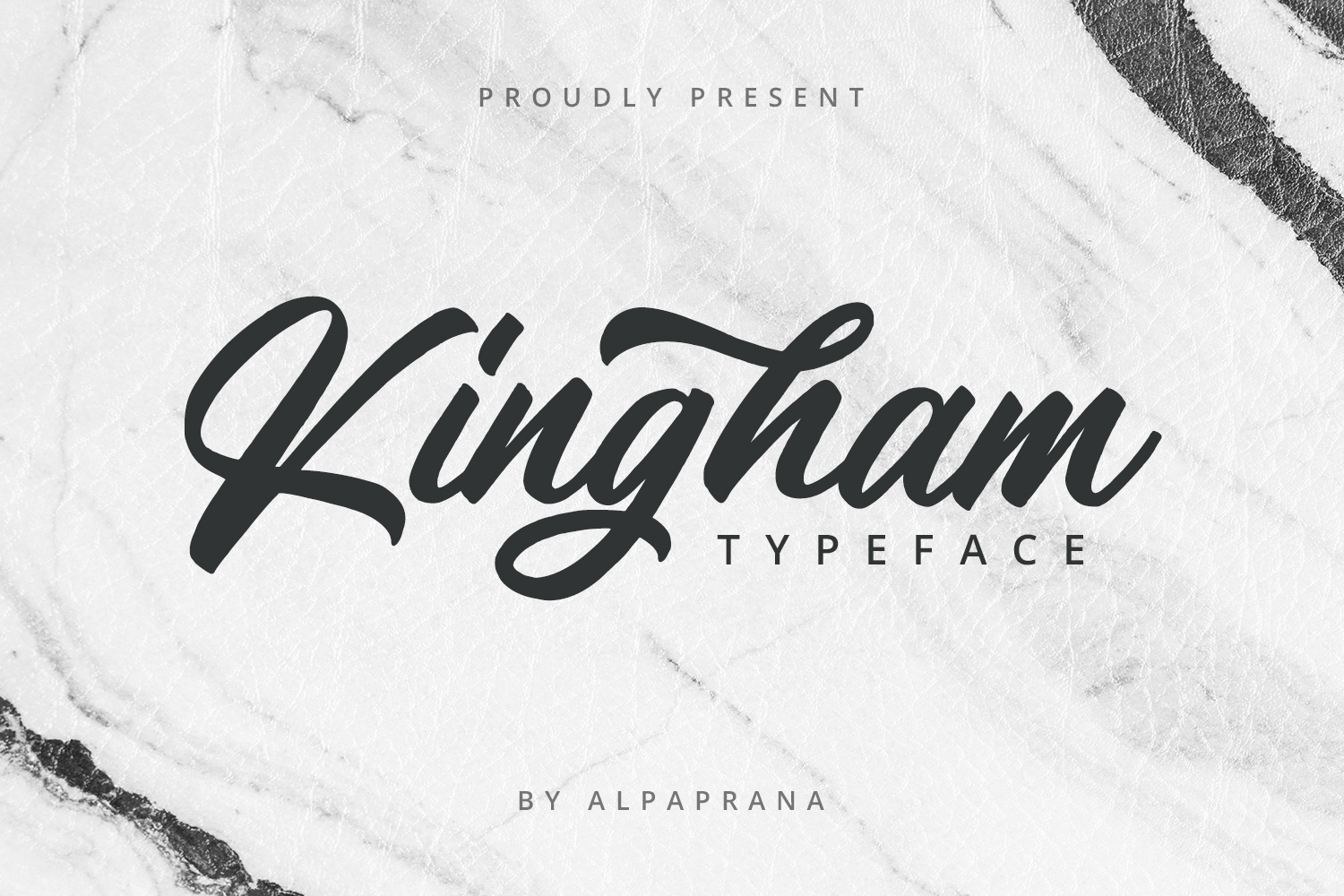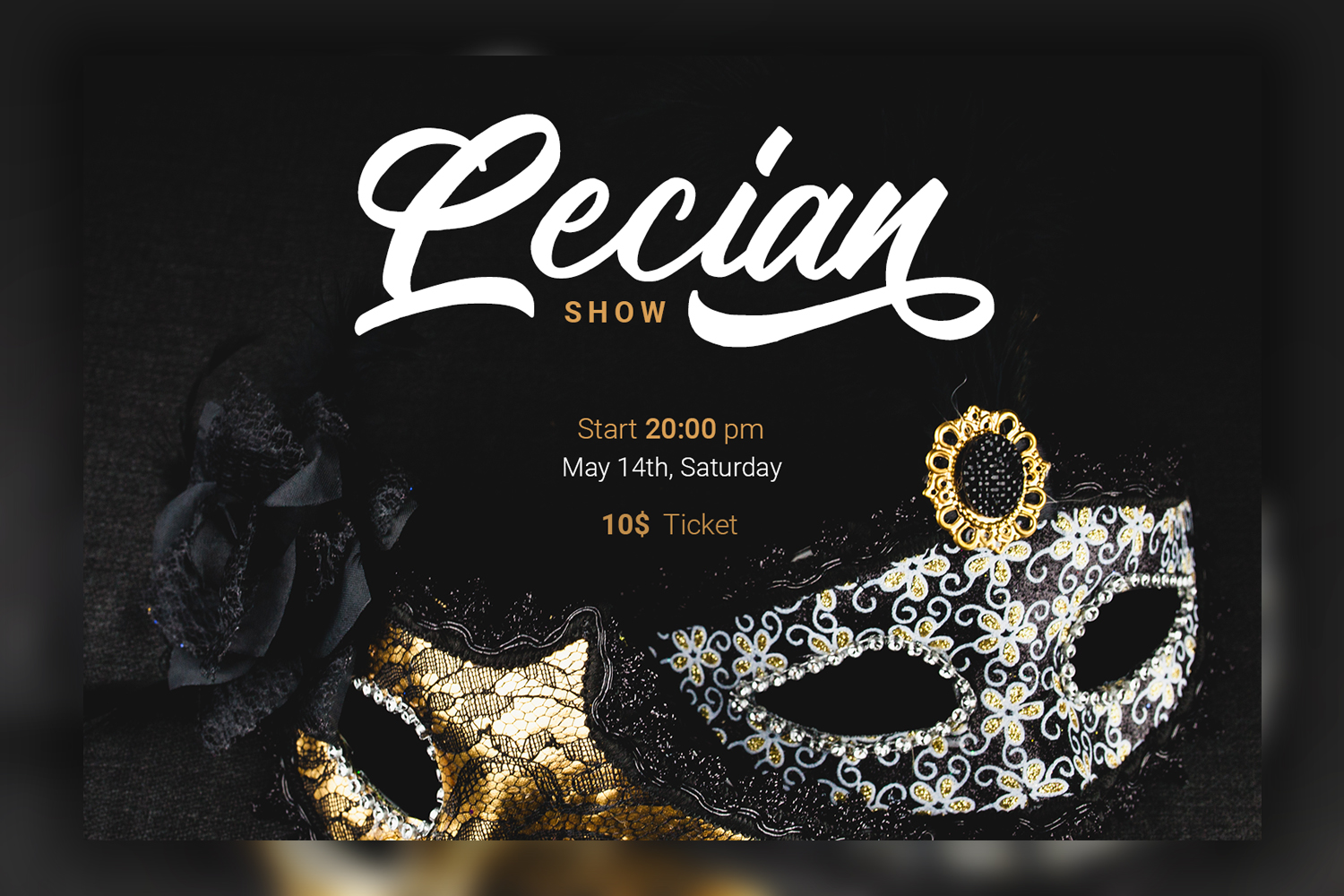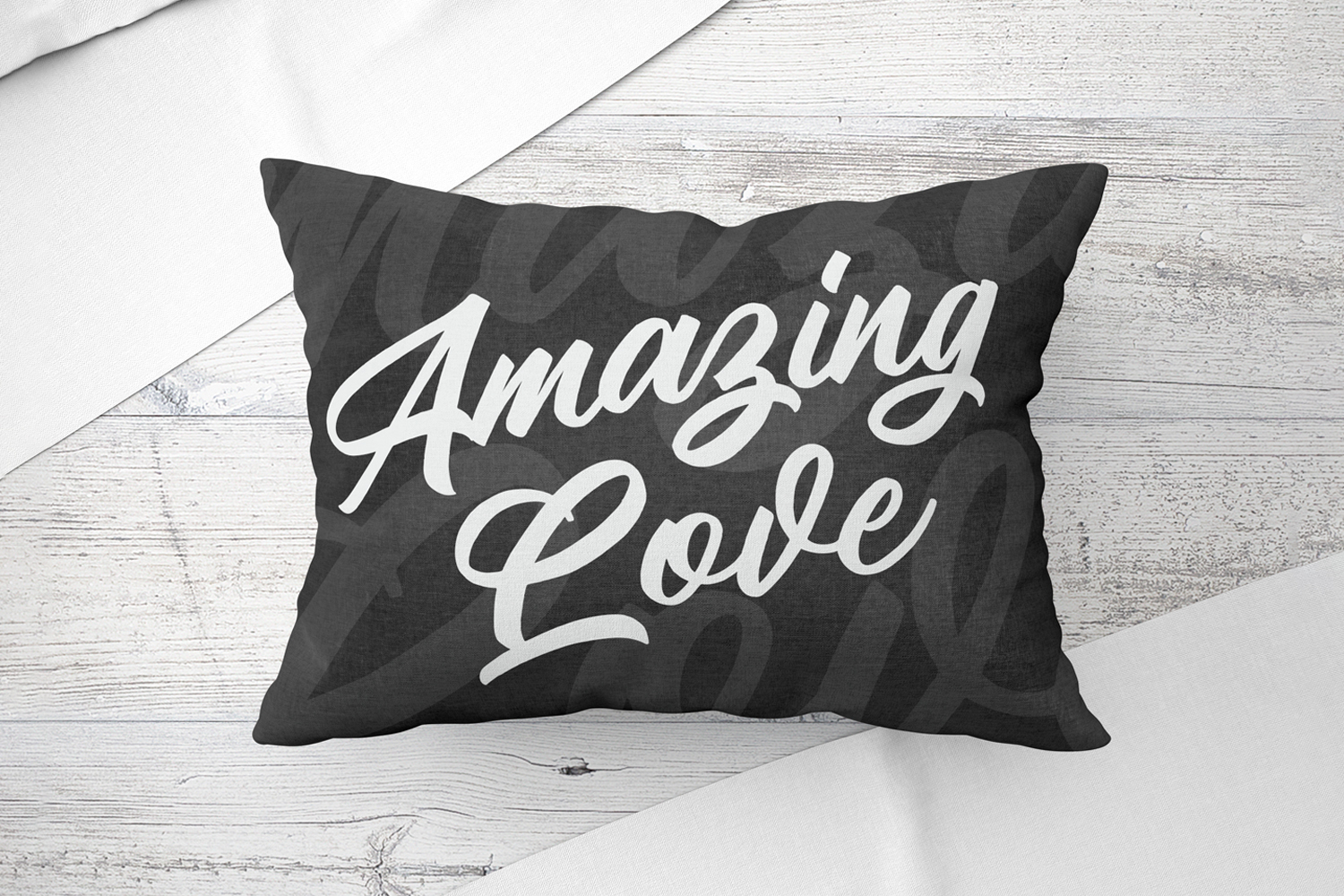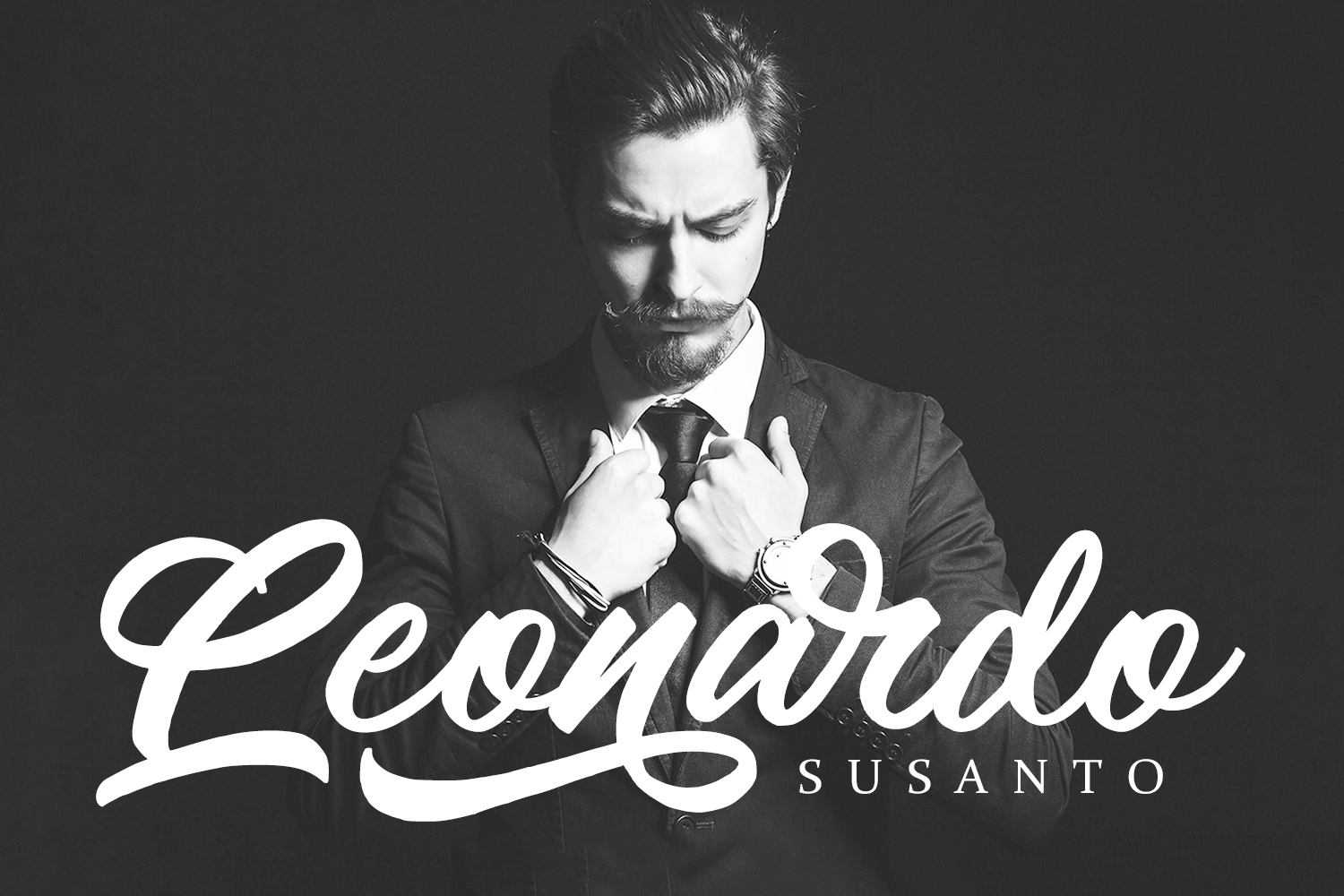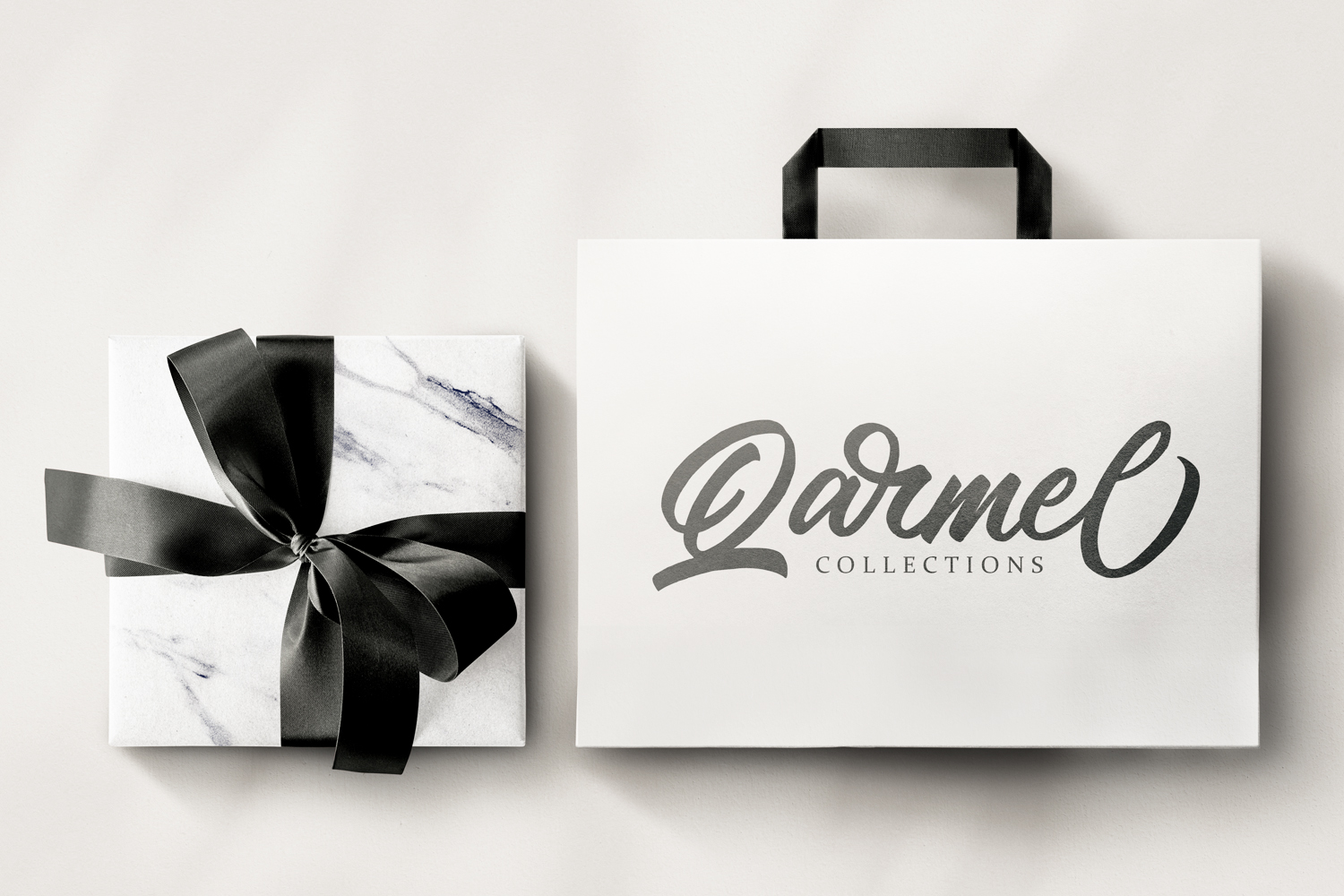
Kingham Font
Kingham Script Font
It’s a stunning script font with authentic and casual feels. It will be perfectly used for Branding, Logo Design, Lettering, Logotype, Clothing, Poster, magazine, packaging, posters, shopping bags, t-shirts, book covers, photography, special events and other design project.